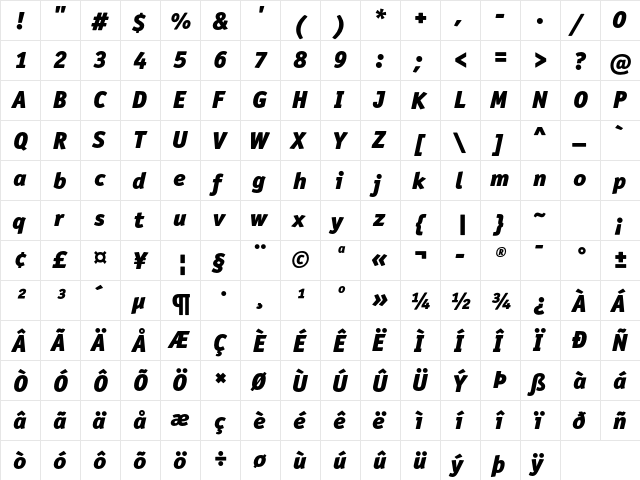
OfficinaSansITCStd BlackItalic Font Preview
OfficinaSansITCStd BlackItalic
| Designer | Erik Spiekermann and Ole Schaefer |
Design Context for OfficinaSansITCStd Typeface
OfficinaSansITCStd offers clean, dependable letterforms without strong stylistic allegiance, making it a practical choice for designers who need flexibility. The dynamic lean of this cut emphasises speed and emphasis in any layout.
Pro Tip: Use OfficinaSansITCStd for emphasis, pull quotes, and subheadings where its slanted energy can add rhythm to the layout.